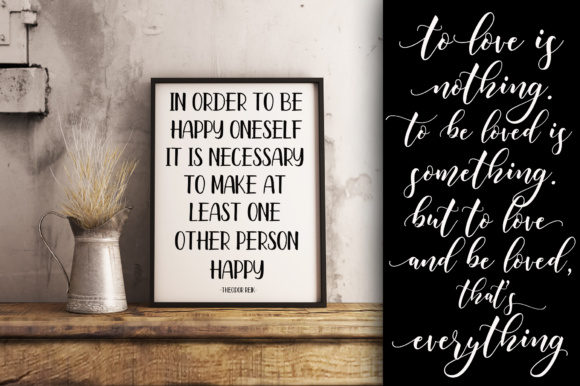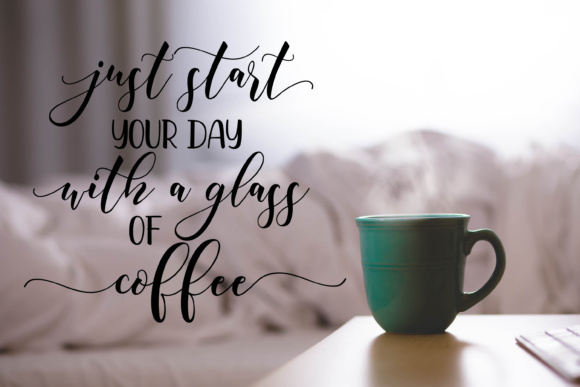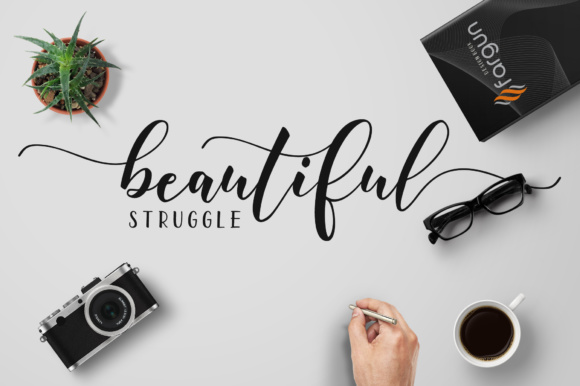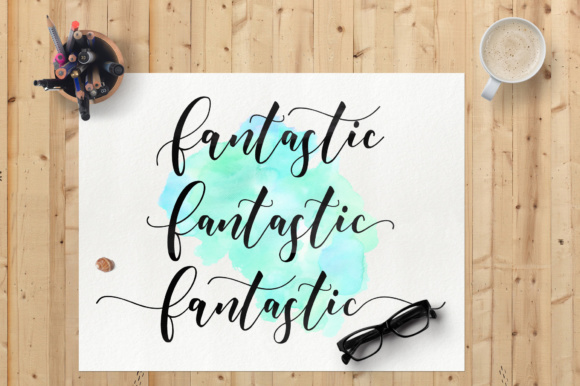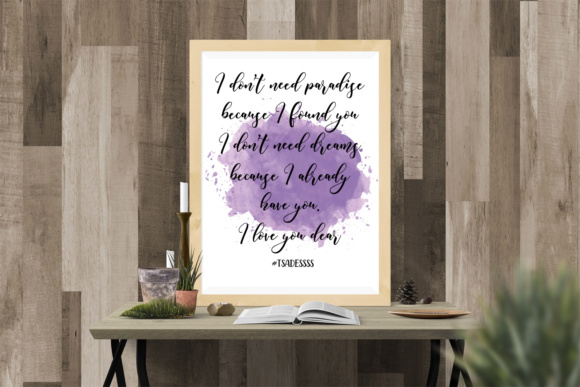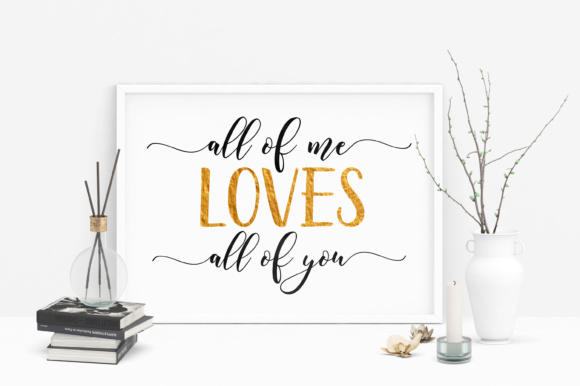
Introducing Heathens Script Font: Elevate Your Designs with Modern Calligraphy
In the world of typography, a new font has emerged that’s capturing the attention of designers and crafters alike. Say hello to Heathens Script Font, a fresh and modern calligraphy-style font that’s perfect for adding a touch of elegance and sophistication to your projects. With its decorative characters and dancing baseline, Heathens is sure to make your texts flow effortlessly on the screen.
What Makes Heathens Script Font Special?
Heathens Script Font is a unique and stylish addition to any design project. Its modern calligraphy style gives it a fresh and contemporary look that’s perfect for a wide range of applications, from wedding invitations and branding materials to social media graphics and website headers. The font’s decorative characters add an extra layer of flair, making it ideal for designs that require a bit of personality and whimsy.
One of the standout features of Heathens is its dancing baseline. Unlike traditional fonts with a static baseline, Heathens features a subtle wobble that gives the text a sense of movement and fluidity. This creates a dynamic and engaging visual effect that’s sure to capture the reader’s attention.
Heathens Script Font is a versatile font that’s perfect for both designers and crafters. Whether you’re creating professional branding materials or handmade crafts, Heathens is the perfect choice for adding a touch of elegance and sophistication to your projects.
For designers, Heathens offers a wide range of possibilities. Use it to create stunning wedding invitations, elegant business cards, or eye-catching social media graphics. The font’s modern calligraphy style and decorative characters make it perfect for designs that require a bit of personality and flair.
For crafters, Heathens is a great choice for adding a personal touch to handmade crafts. Use it to create beautiful journal pages, decorative gift tags, or personalized stationery. The font’s dancing baseline and decorative characters make it perfect for adding a touch of whimsy and personality to your crafts.
Key Features of Heathens Script Font
- Modern calligraphy-style font with decorative characters
- Dancing baseline for a dynamic and engaging visual effect
- Perfect for a wide range of applications, from wedding invitations to social media graphics
- Versatile font suitable for both designers and crafters
- Elegant and sophisticated look that’s perfect for adding a touch of personality to your designs
Tips for Using Heathens Script Font
Here are a few tips for getting the most out of Heathens Script Font:
- Use it sparingly: Heathens is a bold and eye-catching font, so use it sparingly to avoid overwhelming the reader.
- Pair it with a simple font: Pair Heathens with a simple font to create a striking contrast and add visual interest to your design.
- Experiment with colors: Heathens looks great in a variety of colors, so don’t be afraid to experiment and find the perfect shade for your design.
Heathens Script Font is a fresh and modern calligraphy-style font that’s perfect for adding a touch of elegance and sophistication to your designs. With its decorative characters and dancing baseline, Heathens is sure to make your texts flow effortlessly on the screen. Whether you’re a designer or crafter, Heathens is a versatile font that’s perfect for a wide range of applications. So why not give it a try and see the difference it can make in your designs?